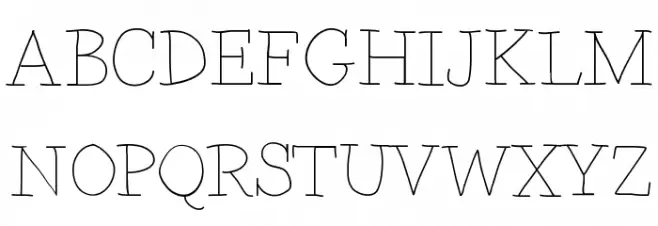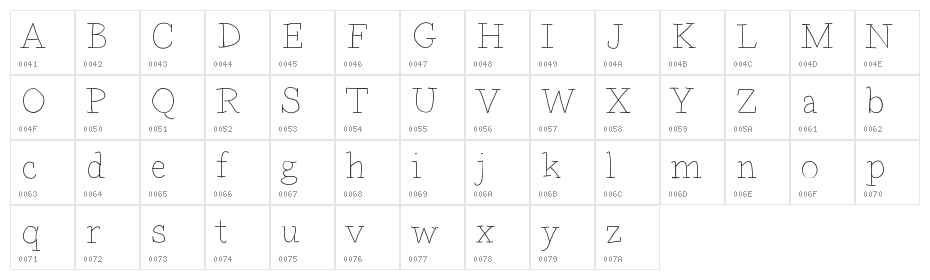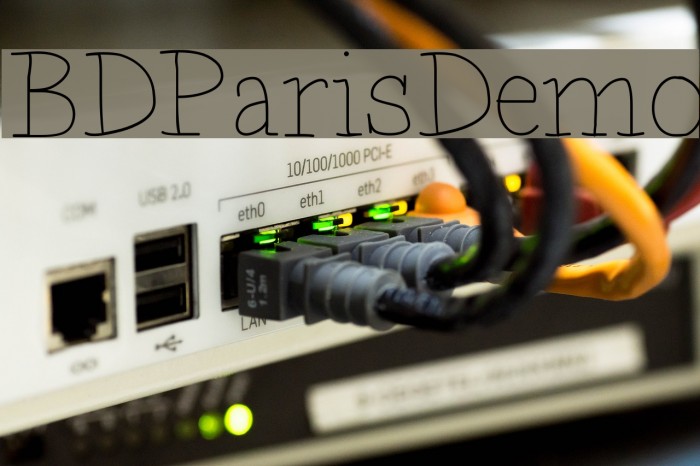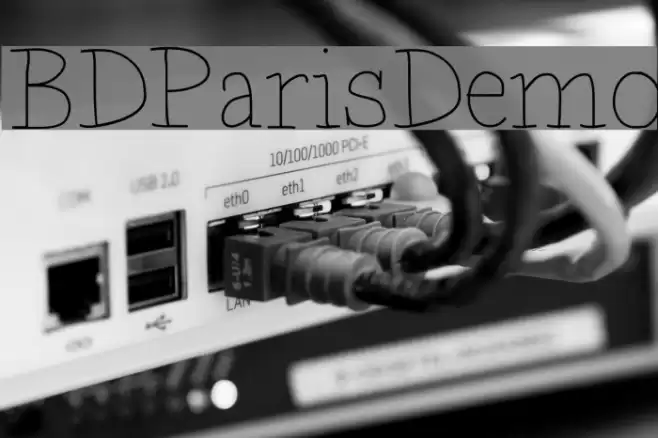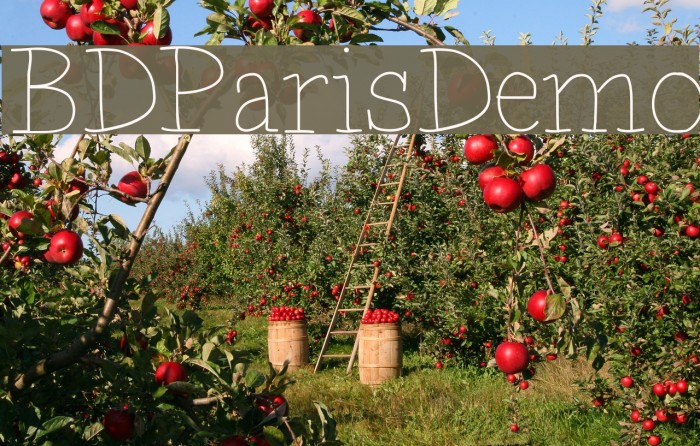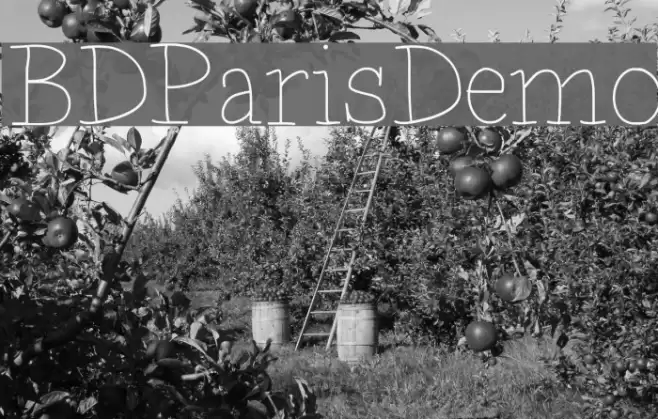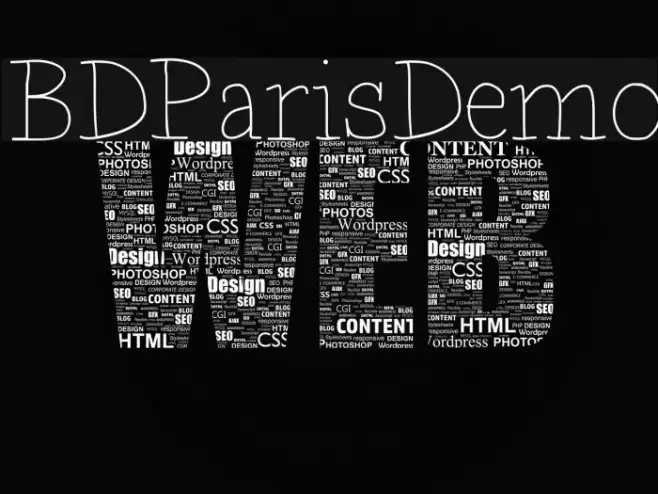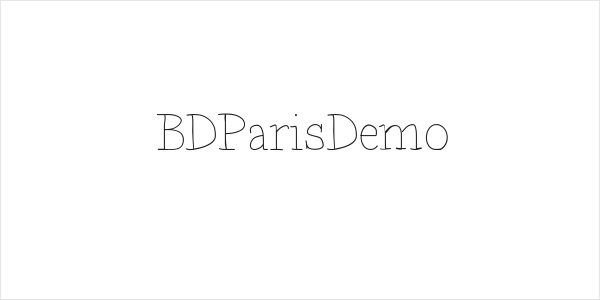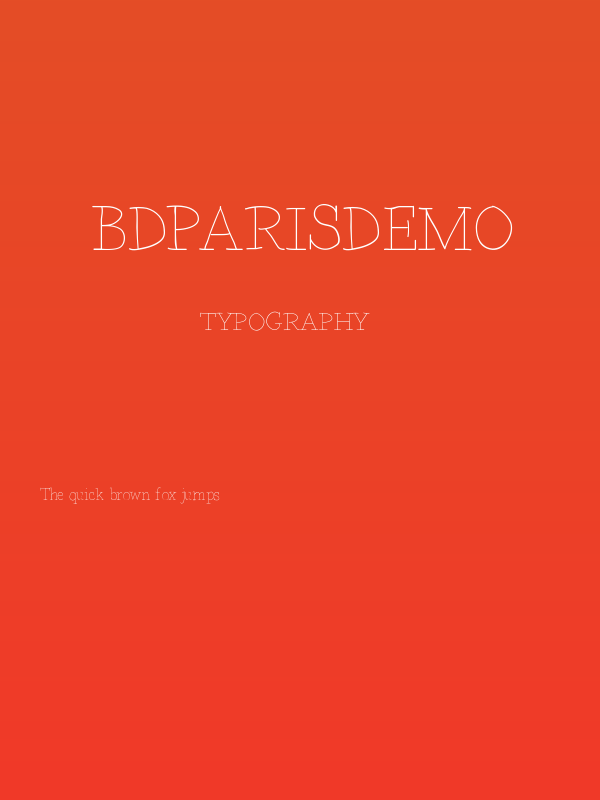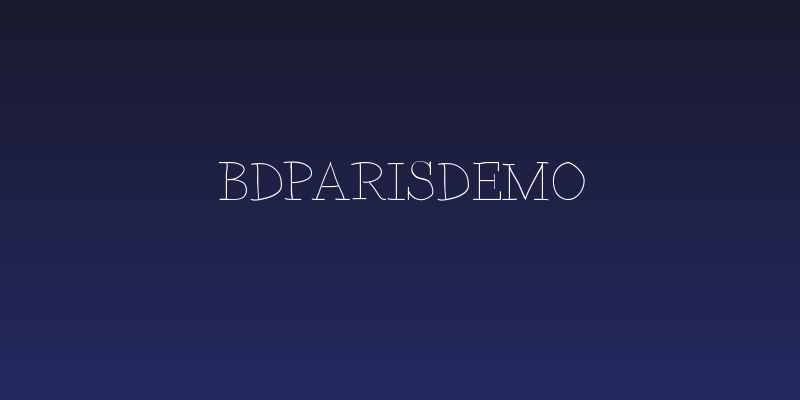
BDParisDemo Font
BDParisDemo Description
This font features a delicate and elegant design with thin, uniform strokes that give it a refined and sophisticated appearance. The characters are slightly elongated, providing a sense of grace and fluidity. The uppercase letters are distinct and well-defined, while the lowercase letters maintain a consistent style that complements the overall aesthetic. The font's clean lines and minimalistic approach make it versatile for various design applications. Its simplicity is balanced with a touch of elegance, making it suitable for both modern and classic projects. The spacing between characters is generous, enhancing readability and adding to its airy feel.
| Proposed Projects | Ideal for wedding invitations, elegant branding, high-end product packaging, and editorial design. |